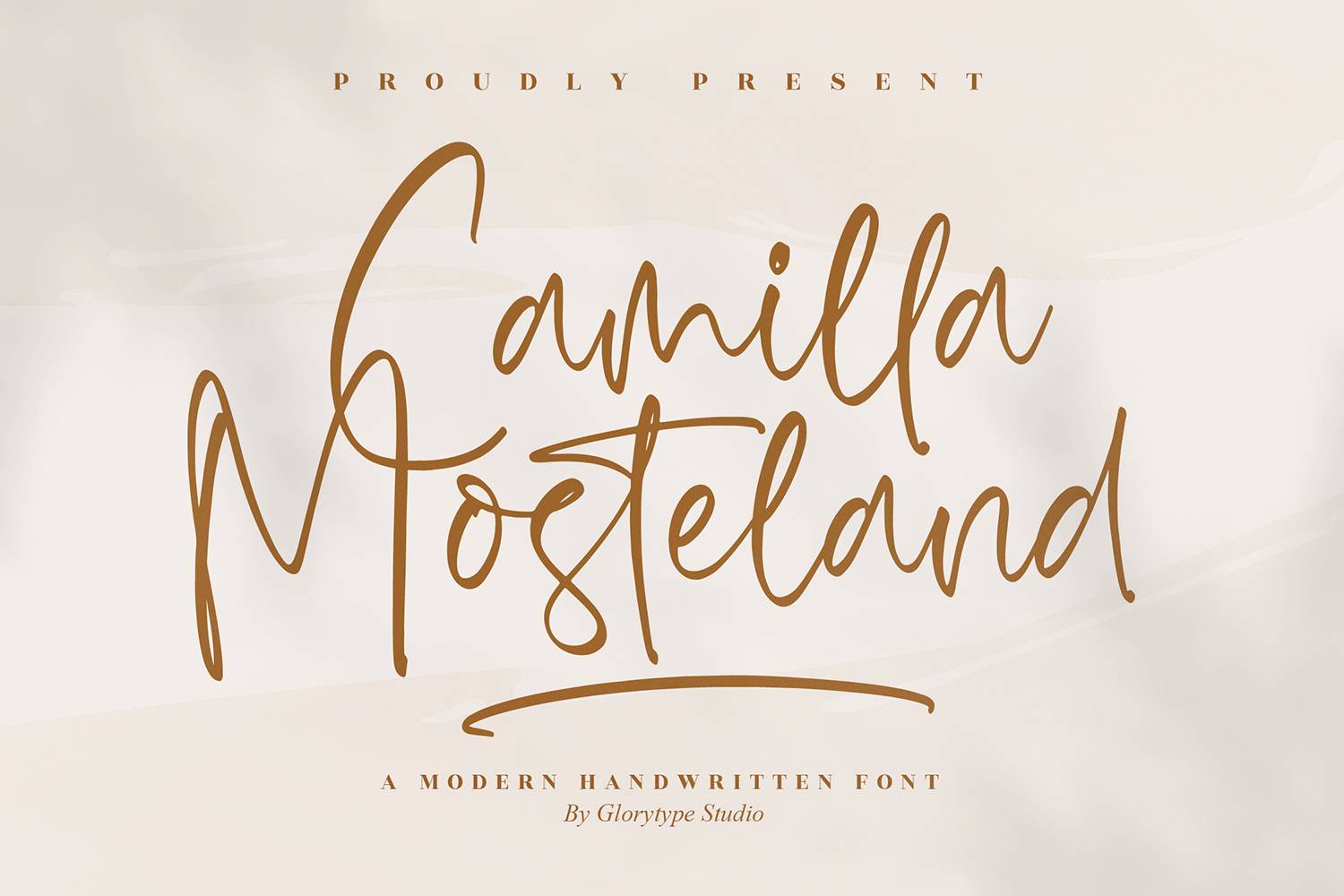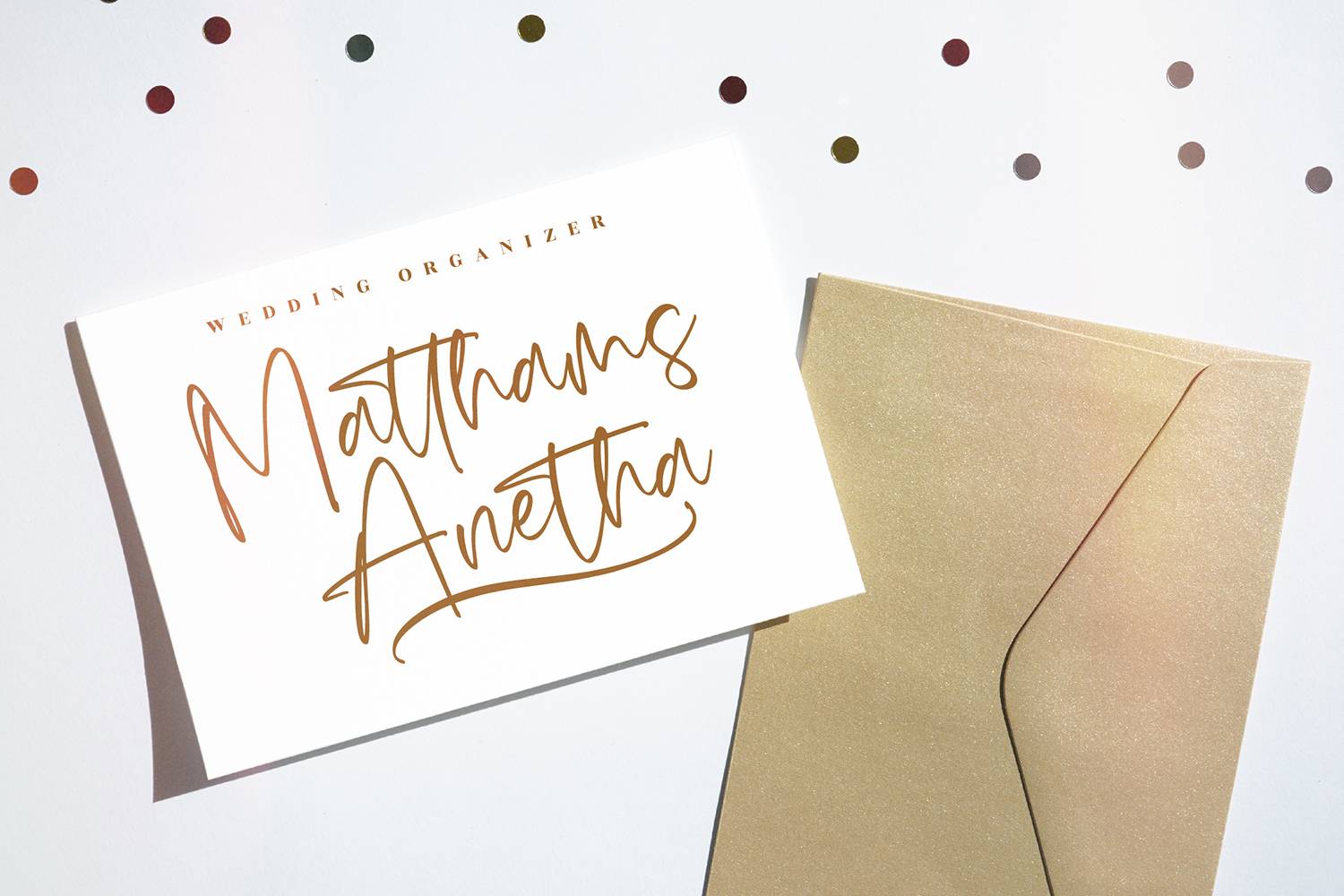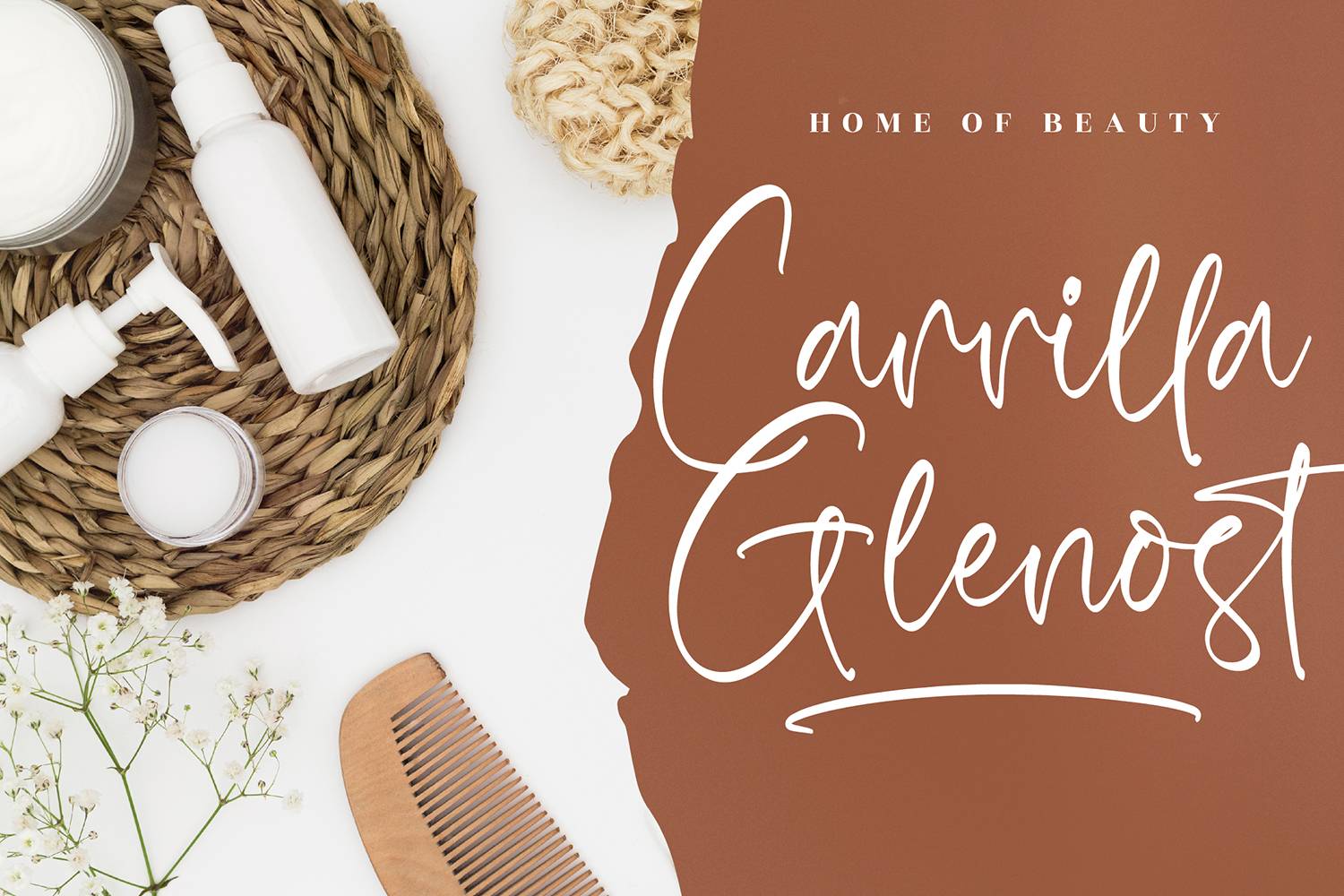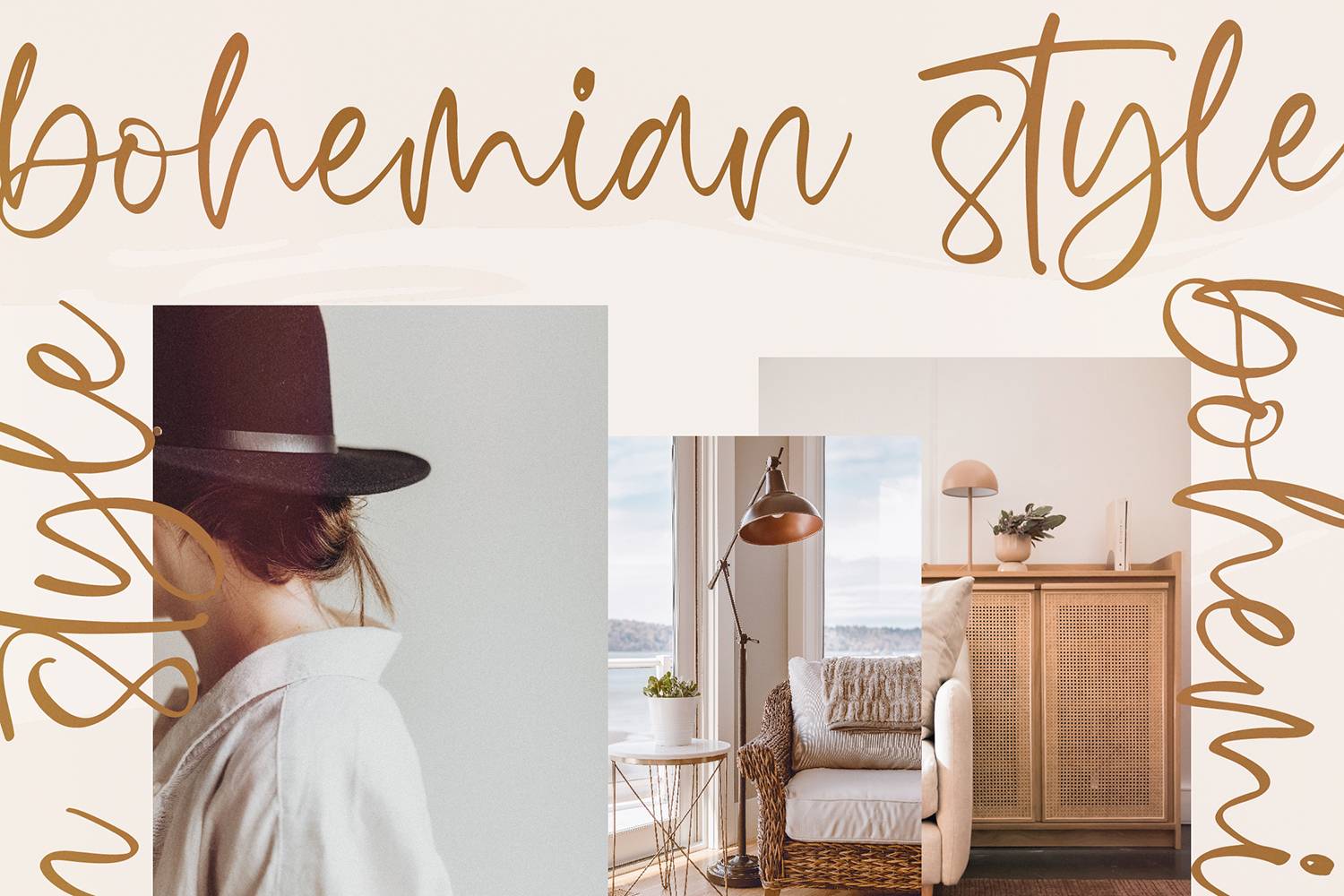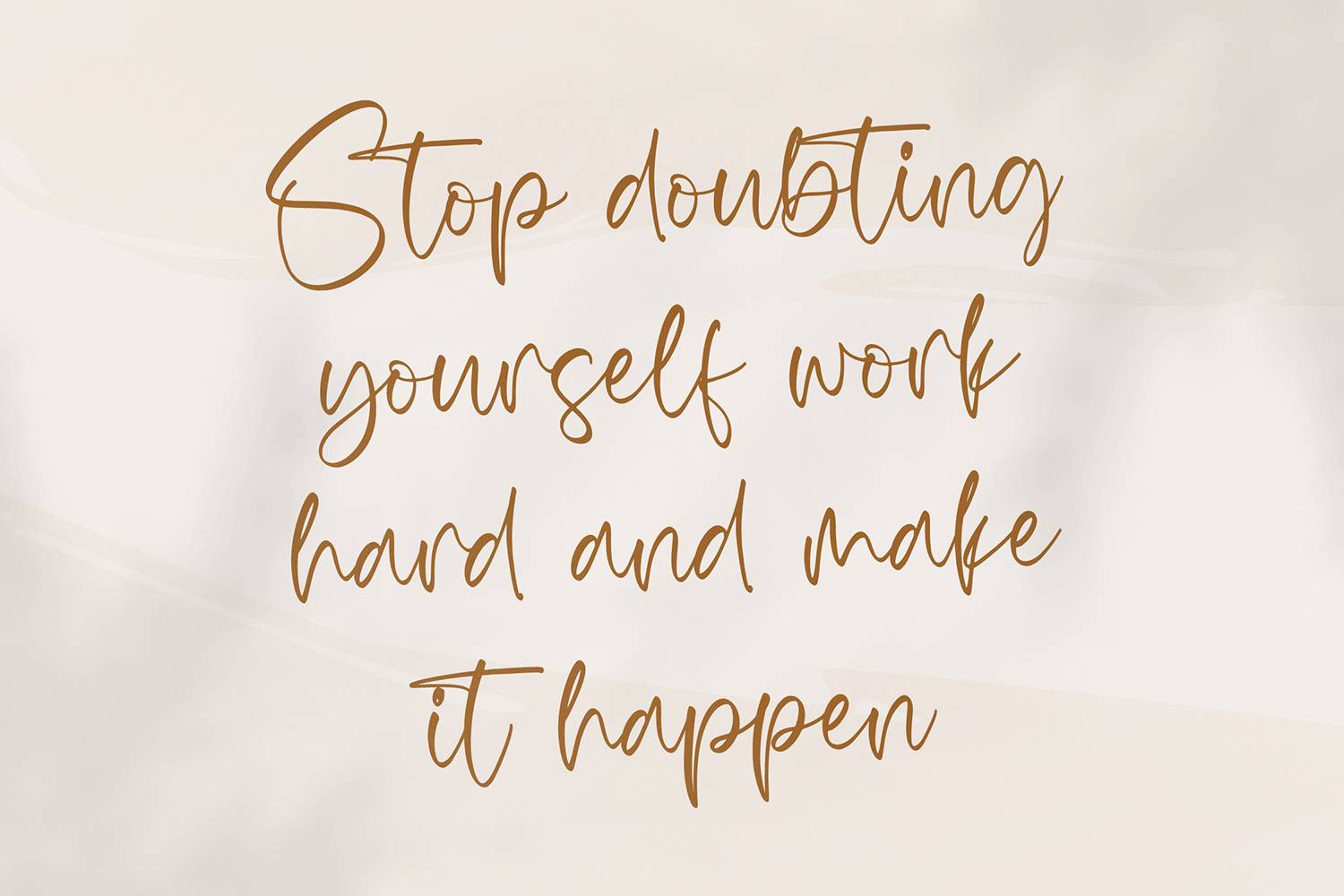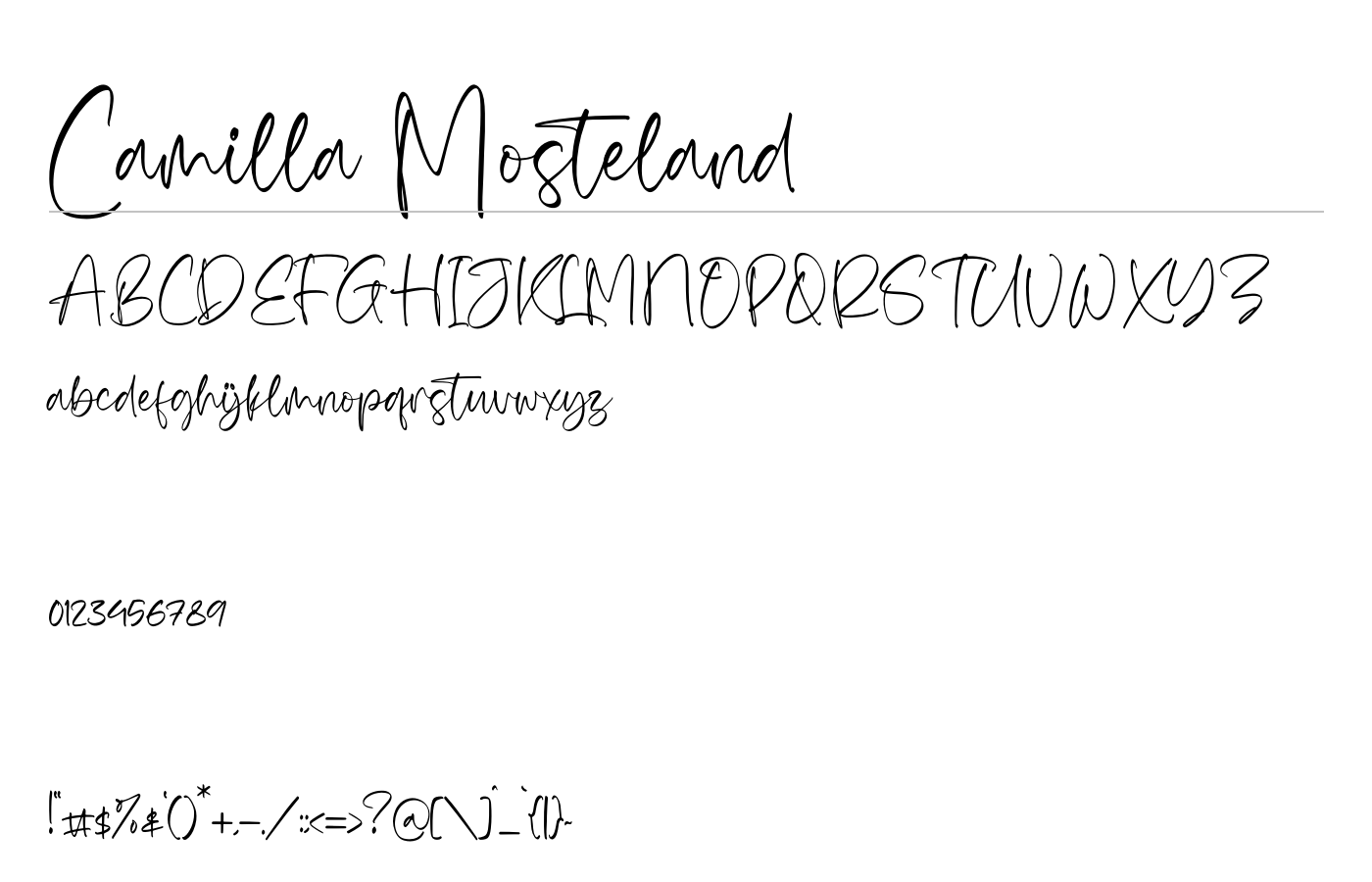
Camilla Mosteland is a delicate, handwritten script font with a light and airy feel, featuring irregular, flowing strokes that give it a personal, casual charm. Its tall, slender letterforms with a slight bounce and varied line thickness make it ideal for adding a touch of elegance and warmth to creative projects such as invitations, personal branding, and lifestyle blogs. This font works beautifully where a playful yet refined, approachable style is needed to create an intimate connection with the reader.
Camilla Mosteland Font
About Camilla Mosteland Font